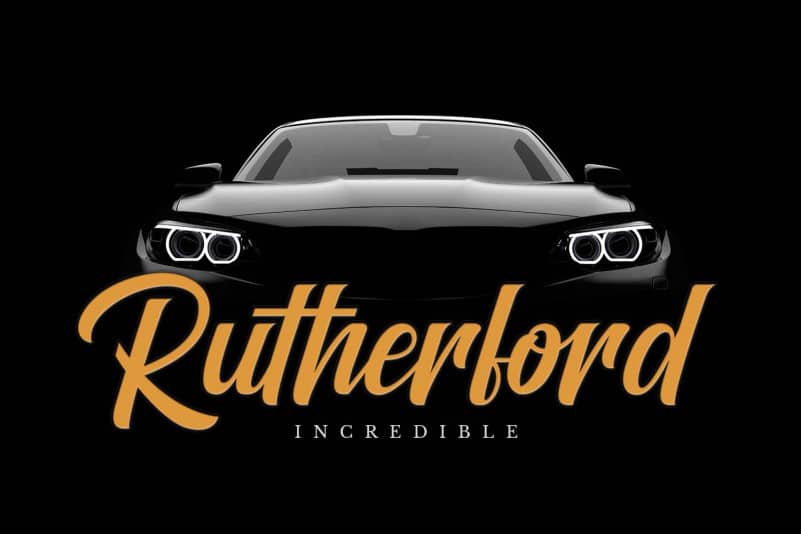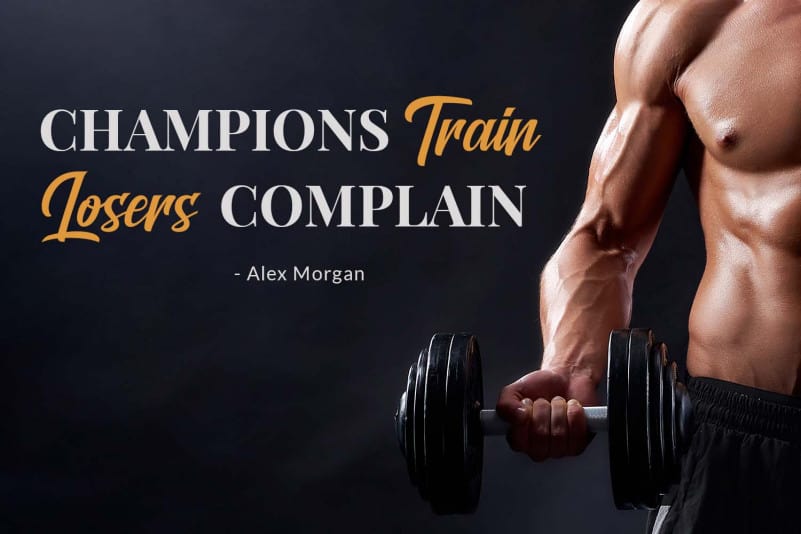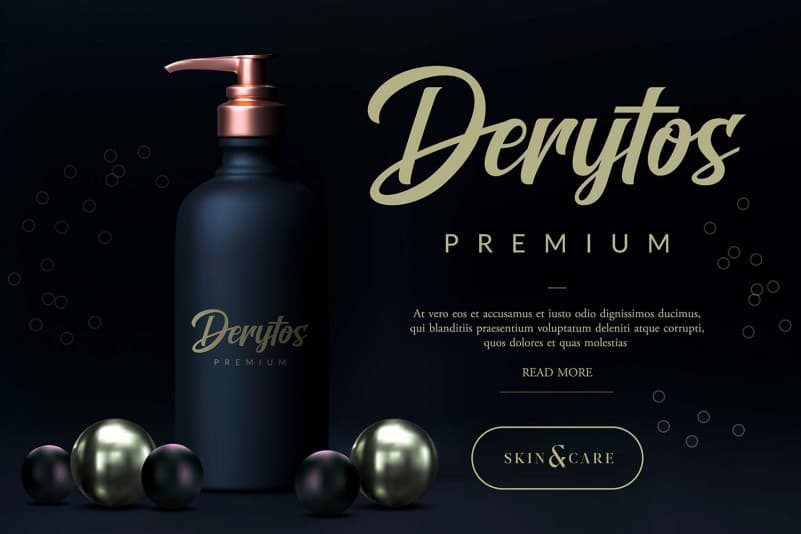
Brightons Script Font
Brightons Script Font is a bold style script font with authentic and casual feels. It will be perfectly used for Branding, Logo Design, Lettering, Logotype, Clothing, Poster, magazine, packaging, posters, shopping bags, t-shirts, book covers, photography, special events, and another design project.